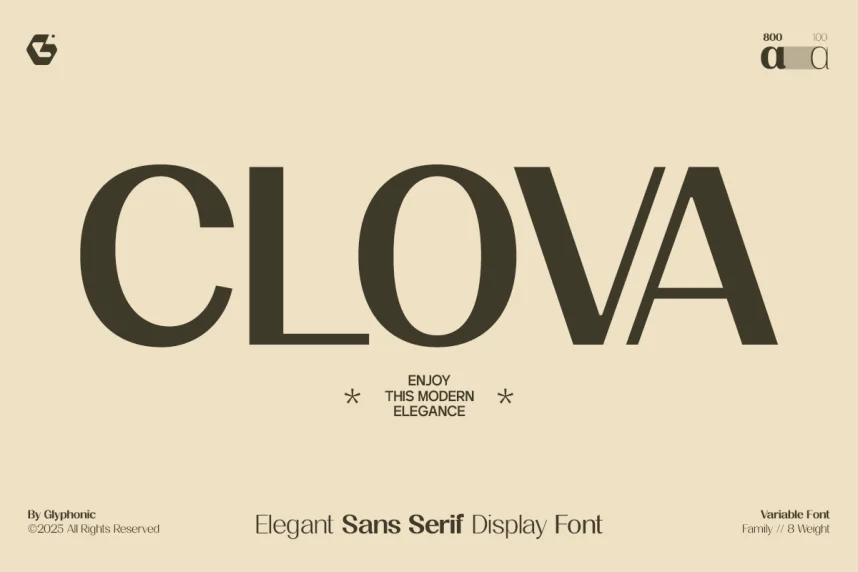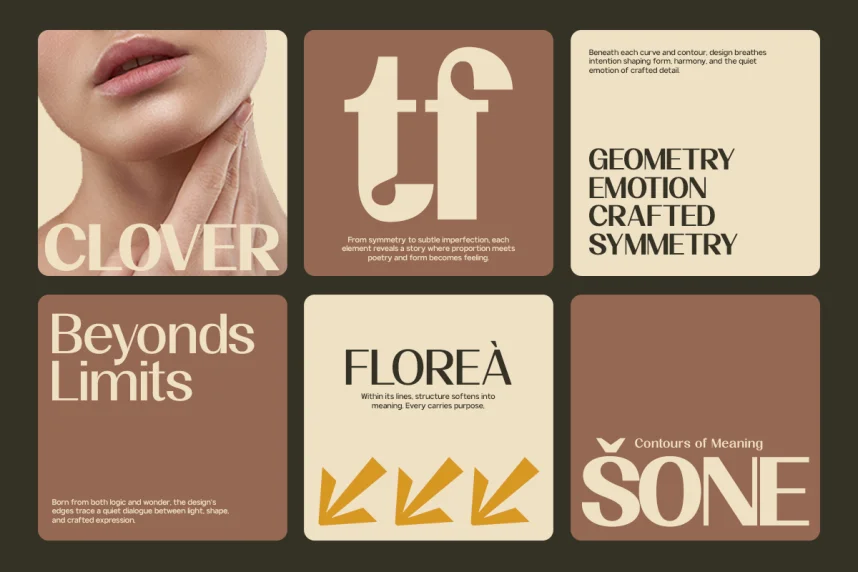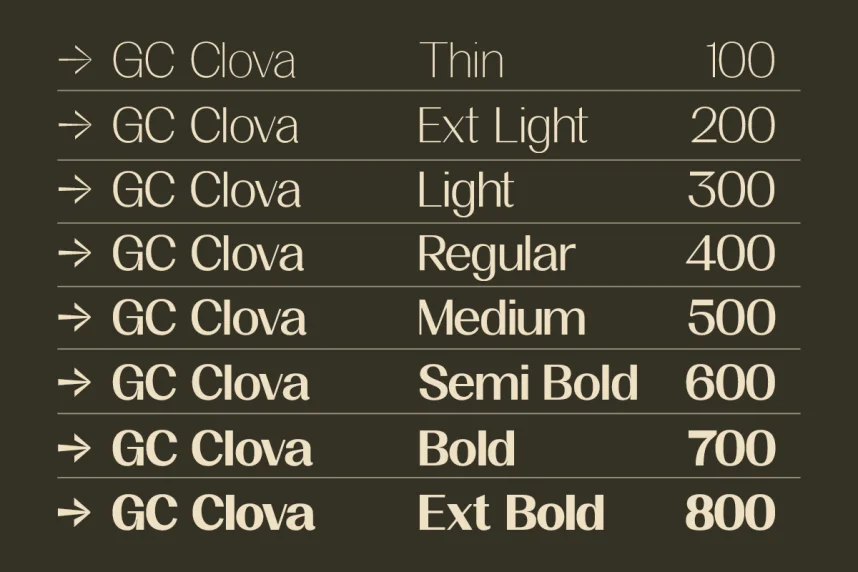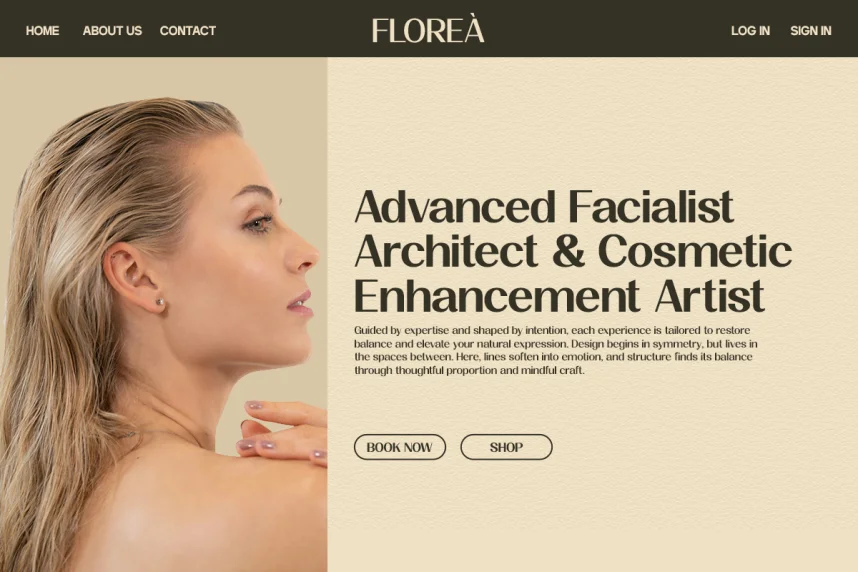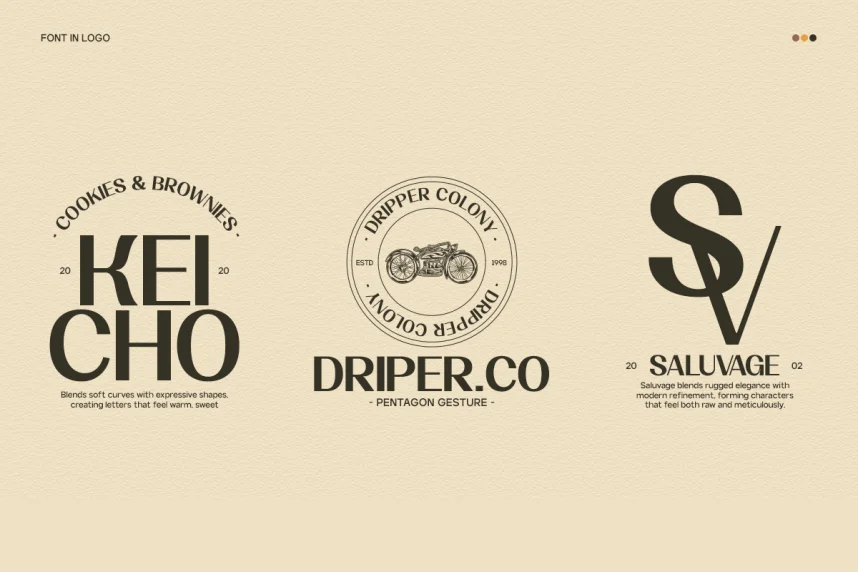
GC Clova Font supports designers who need consistent readability across digital screens and printed materials. Fonts like this are often used where clarity matters more than decorative styling.
GC Clova Font is generally classified as a sans-serif typeface, featuring smooth curves, open letterforms, and balanced spacing. These traits help reduce eye strain and support long reading sessions in digital and print formats.